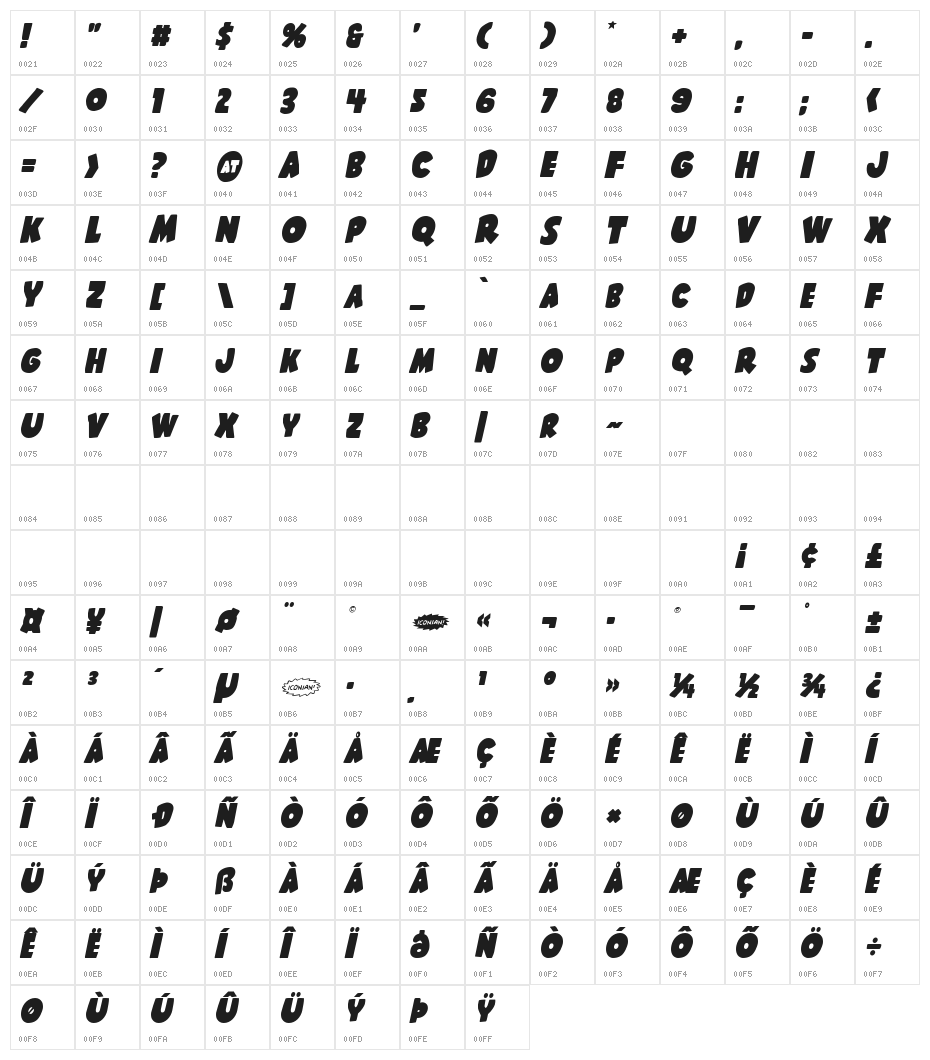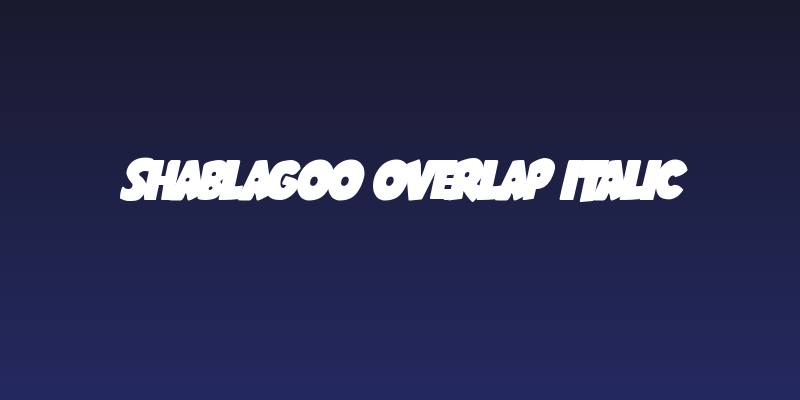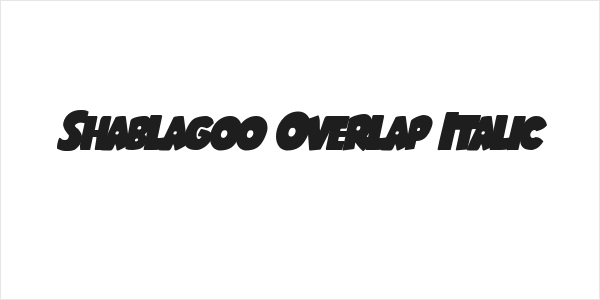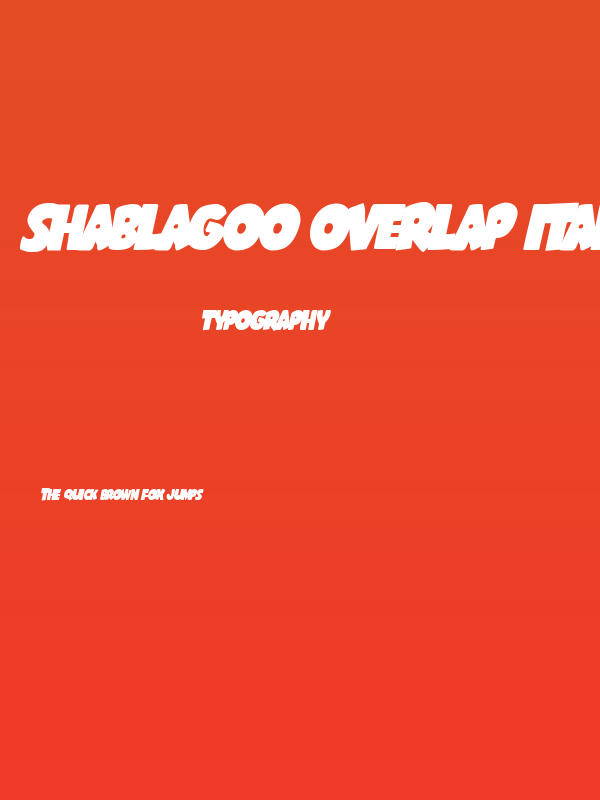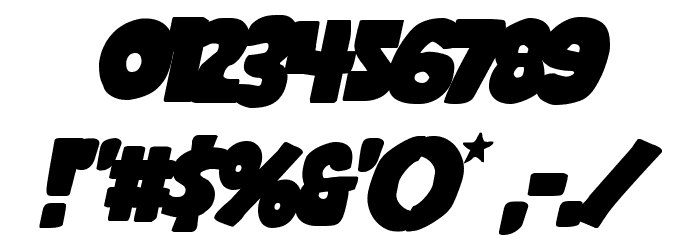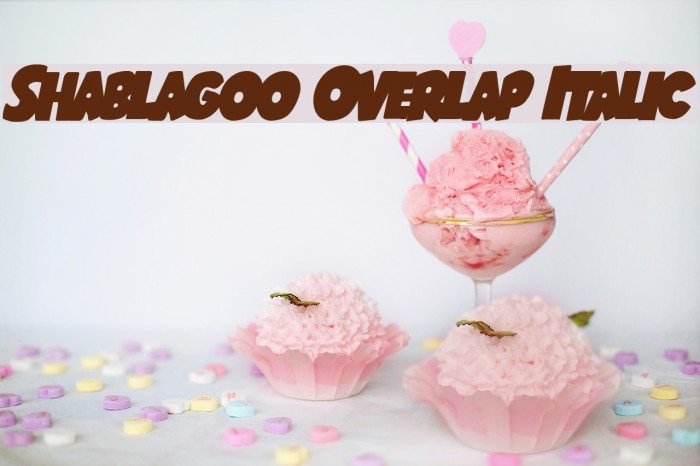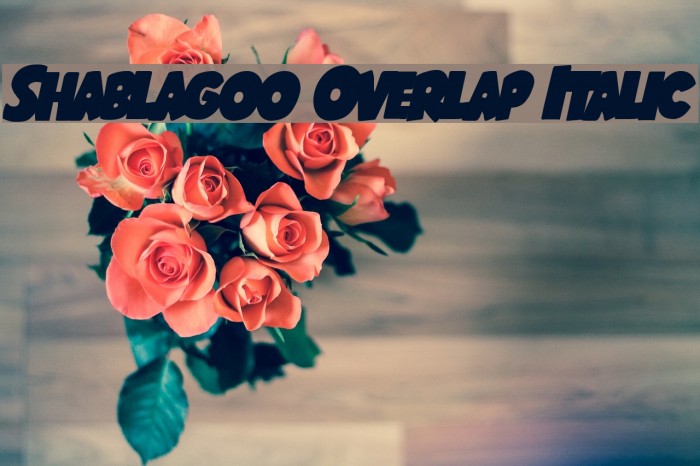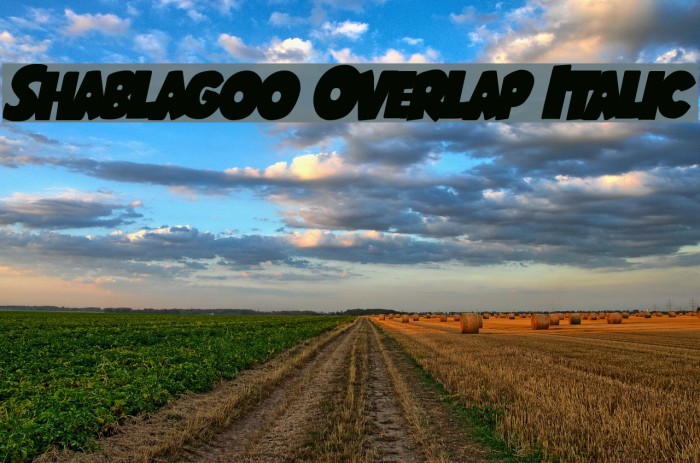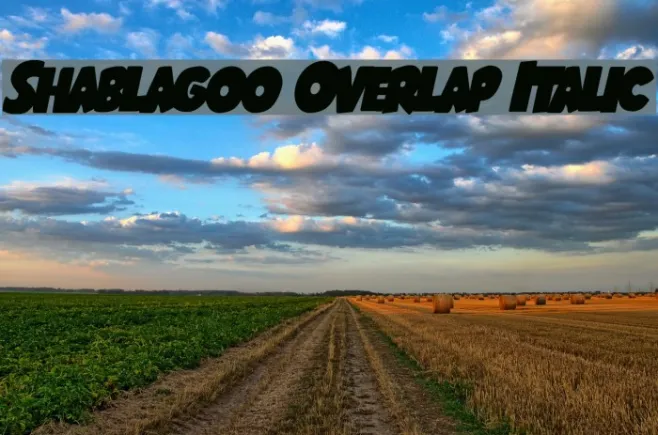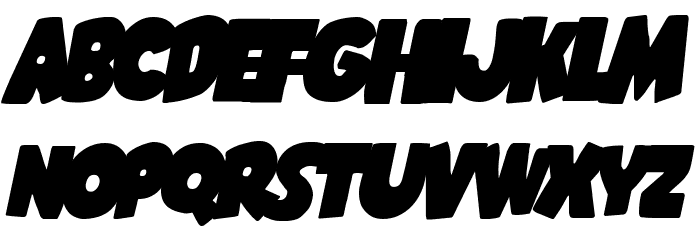
Shablagoo Overlap Italic Font
This bold and dynamic font features thick, overlapping characters with a strong italic slant, giving it a sense of movement and energy. The letters are tightly spaced, enhancing the boldness and impact of the text. The font's style is playful and modern, with a unique flair that makes it stand out. It includes a full set of uppercase and lowercase letters, numbers, and a variety of special characters, making it versatile for different design needs. The high contrast between the thick strokes and the negative space adds to its striking appearance.
| Proposed Projects | Ideal for use in posters, logos, and branding materials where a bold and energetic statement is needed. |